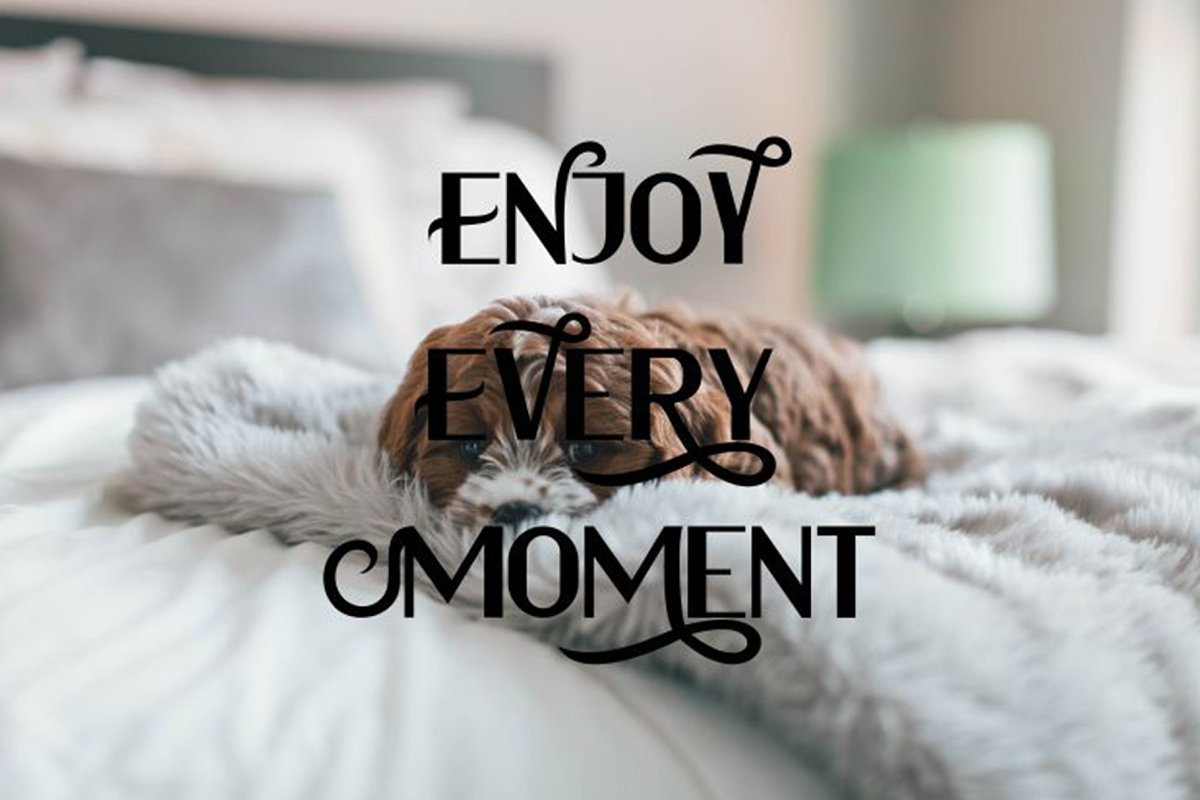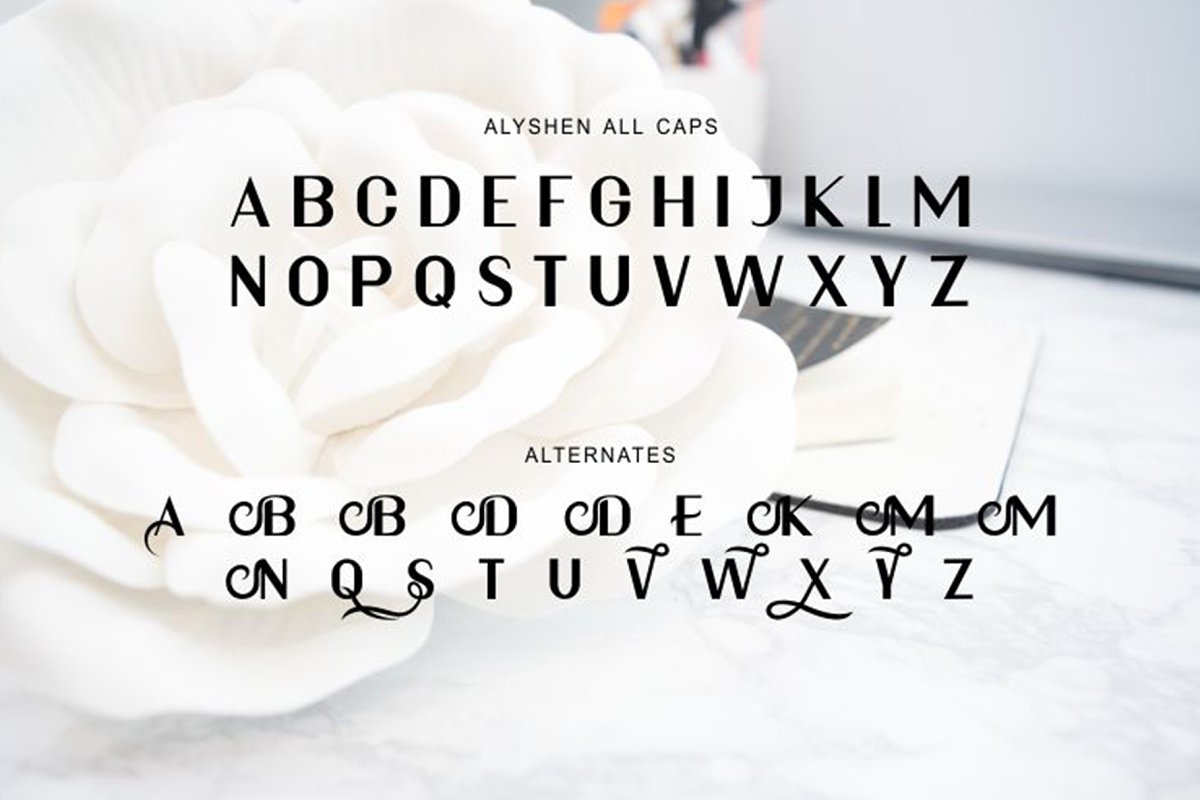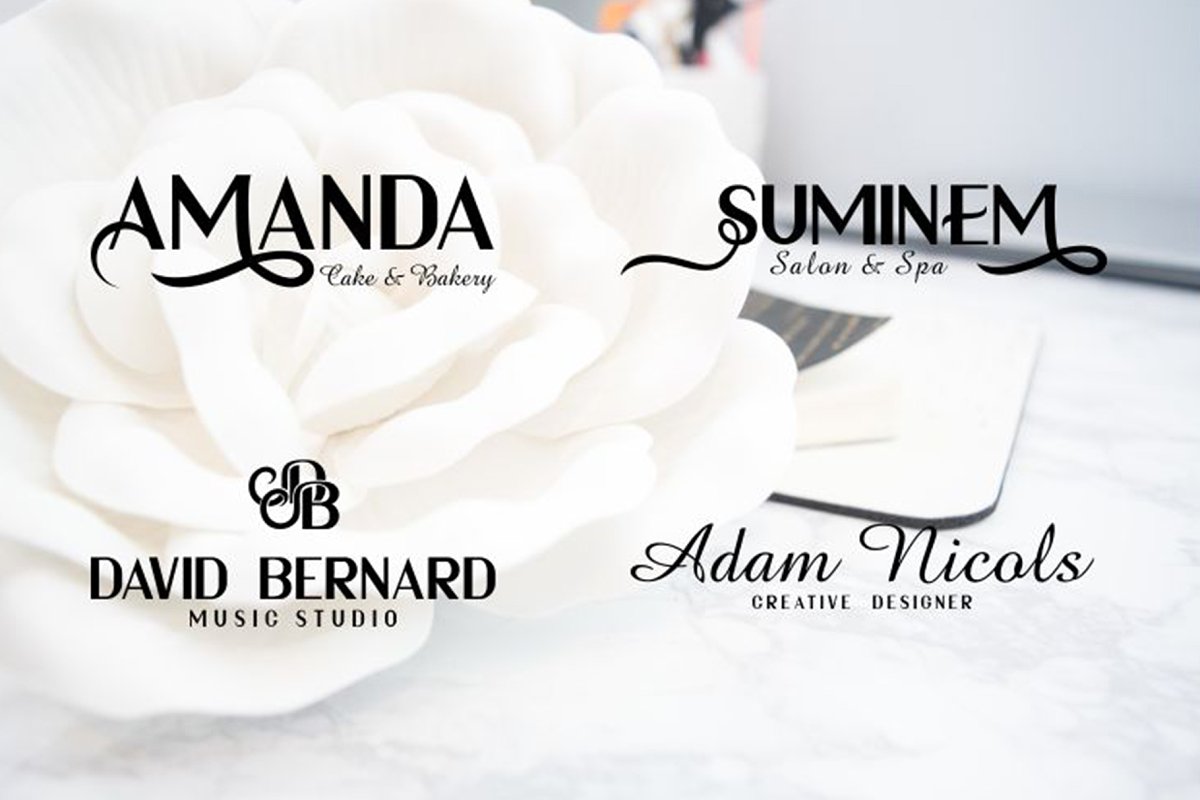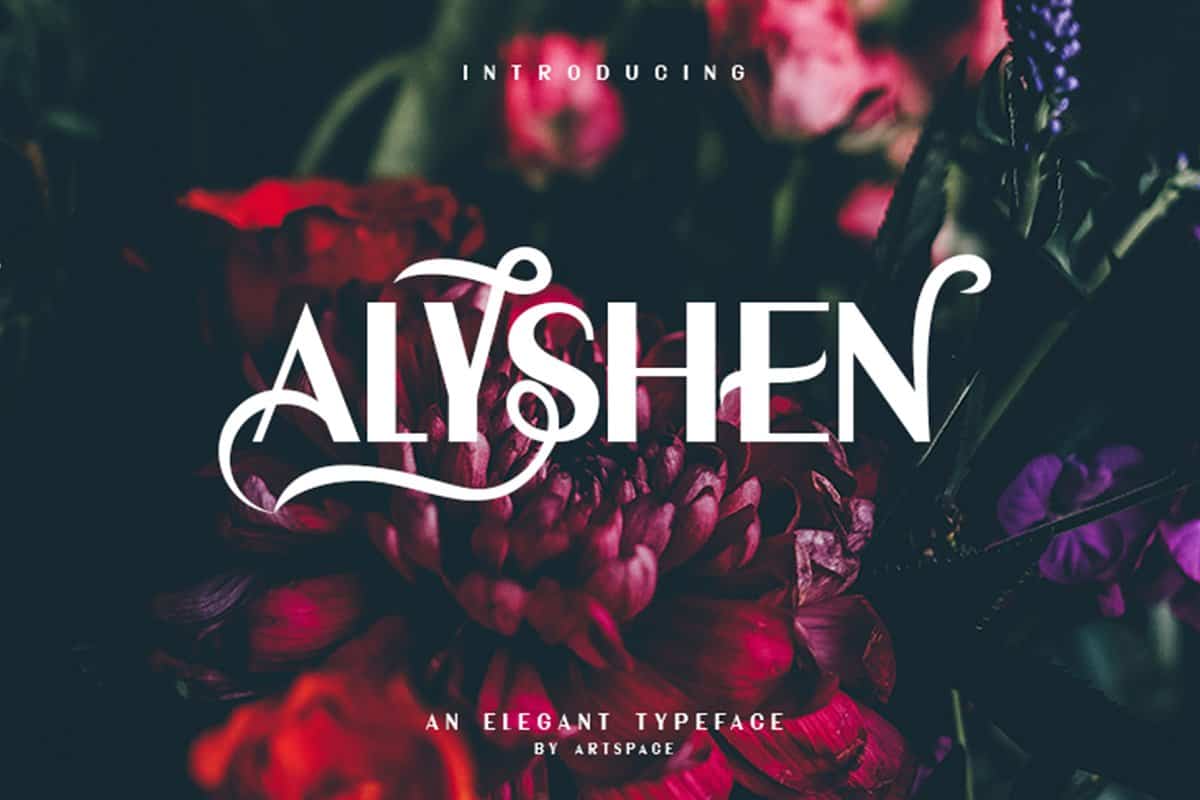
ALYSHEN Typeface
Introducing Alyshen Font. The ALYSHEN is an elegant sans typeface, which has cute styles and alternates on several letter. This font will work great in logo designs, poster creations, branding, shirt designs and more. It’s definitely limited in its uses, but it is perfect for creating creative works.